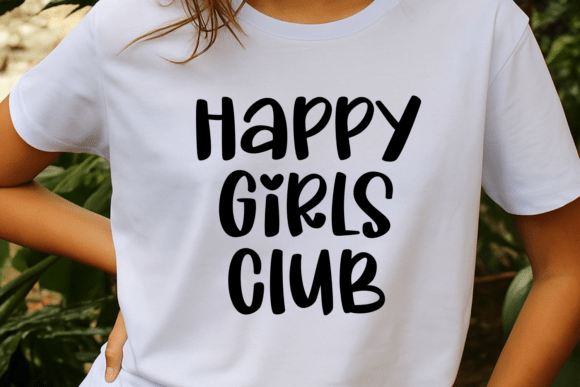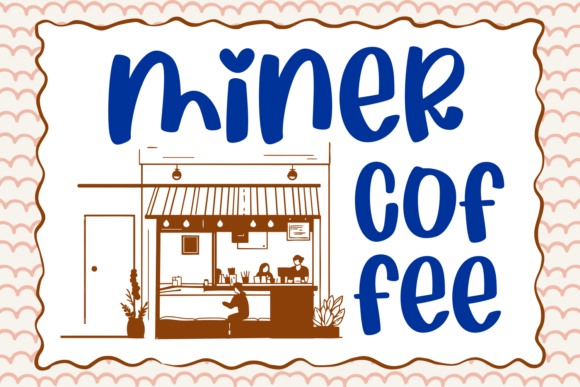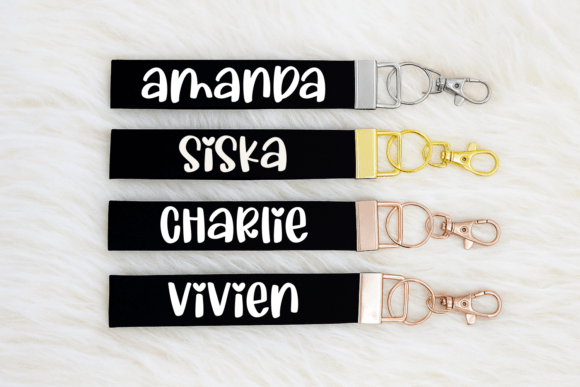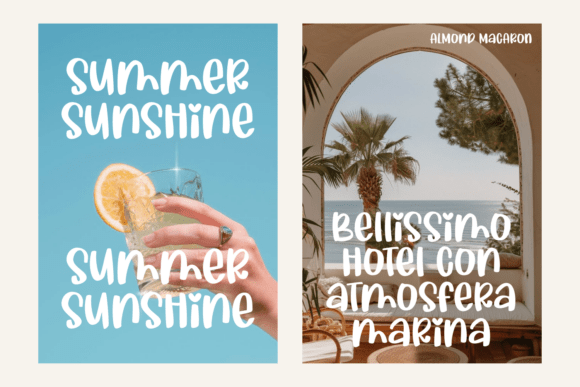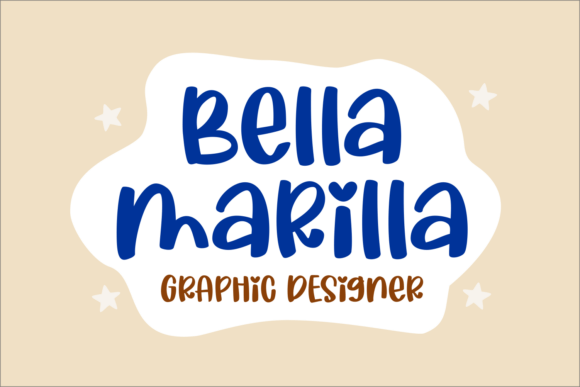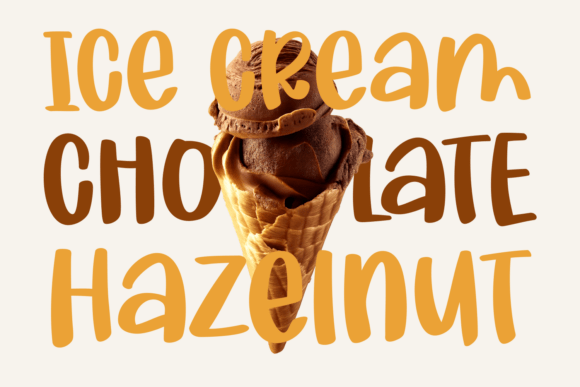
Introducing Almond Macaron Font: The Sweetest Addition to Your Design Collection
Are you a designer or crafter looking for a font that can add a touch of warmth and playfulness to your projects? Look no further than Almond Macaron Font, a delightful handwritten font that’s inspired by the sweetness of desserts, cozy cafés, and cheerful moments. In this article, we’ll dive into the features and benefits of Almond Macaron Font, and explore how it can elevate your designs and bring a smile to your audience’s faces.
The Inspiration Behind Almond Macaron Font
Almond Macaron Font is a carefully crafted font that’s designed to evoke the feeling of indulging in sweet treats and sipping coffee at a quaint café. The font’s creator was inspired by the soft curves and bold strokes of handwritten letters, and sought to bring a friendly, handmade feel to the digital world. The result is a font that’s both playful and elegant, with a unique personality that shines through in every letter.
Key Features of Almond Macaron Font
So, what makes Almond Macaron Font so special? Here are just a few of its key features:
- Soft curves and bold strokes: Almond Macaron Font features smooth, rounded curves and confident strokes that give it a friendly and approachable feel.
- Handmade feel: This font has a distinctly handmade quality that’s perfect for designs that require a personal touch.
- Easy to read: Despite its playful nature, Almond Macaron Font is surprisingly easy to read, making it perfect for both digital and print designs.
- Versatile: This font can be used for a wide range of projects, from bakery branding and food packaging to kids’ projects, café menus, stickers, quotes, posters, and social media content.
Almond Macaron Font is a dream come true for designers and crafters who want to add a touch of whimsy and charm to their projects. Whether you’re creating branding materials for a bakery, designing stickers for a kids’ party, or crafting social media graphics for a café, this font is sure to delight. Its unique personality and friendly feel make it perfect for projects that require a human touch.
Use Cases for Almond Macaron Font
So, what can you create with Almond Macaron Font? Here are just a few ideas to get you started:
- Bakery branding: Use Almond Macaron Font to create eye-catching logos, packaging, and marketing materials for your bakery or food business.
- Kids’ projects: Add a touch of whimsy to your kids’ projects, such as stickers, coloring pages, and activity sheets.
- Café menus: Create charming and easy-to-read menus for your café or coffee shop.
- Social media content: Use Almond Macaron Font to create engaging social media graphics, quotes, and posters that will make your audience smile.
Why Choose Almond Macaron Font?
So, why should you choose Almond Macaron Font for your next project? Here are just a few reasons:
- Unique personality: Almond Macaron Font has a one-of-a-kind personality that’s sure to make your designs stand out.
- High-quality design: Almond Macaron Font is designed to the highest standards, with careful attention to detail and a focus on legibility.